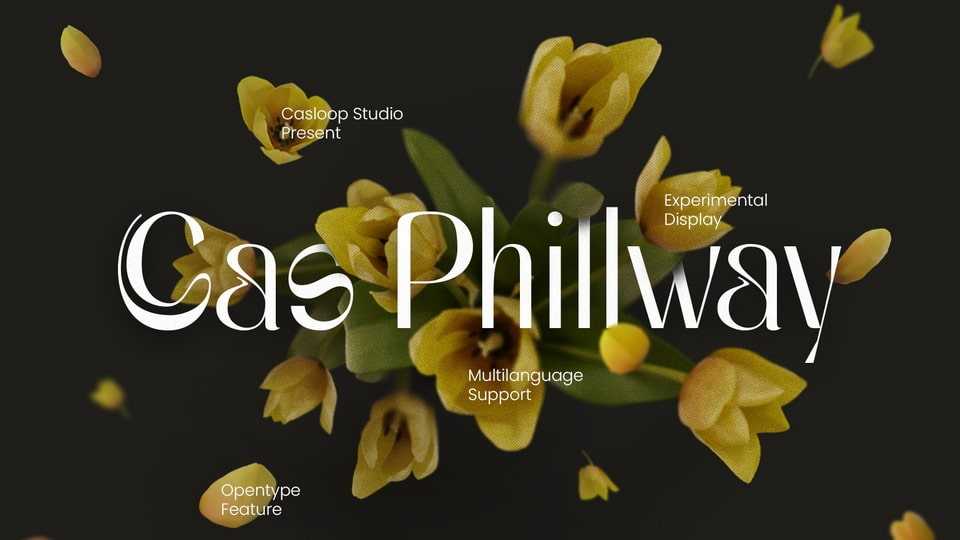
Download Cas Phillway font, an implementation of effortless beauty. Cas Phillway font keeps the aesthetic letterform on legibility and readability as the display typeface is presented.